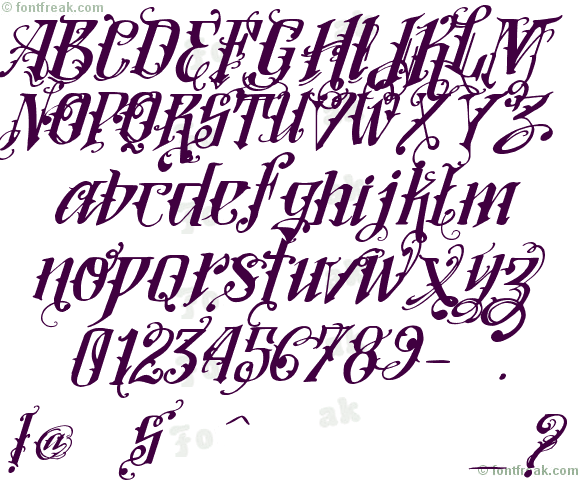
Vtks Lovers Italic
About Vtks Lovers Italic
Vtks Lovers Italic, crafted by Douglas Vitkauskas, is a stunning display font that falls within the decorative category. This typeface exudes an artistic flair, characterized by its elegant, flowing strokes and intricate detailing. The font features a medium stroke weight with soft contrast, allowing it to maintain readability while still showcasing its ornate design. The decorative elements, including whimsical swirls and flourishes, give it a romantic and sophisticated appearance, making it a perfect choice for various creative projects.
This unique font is particularly suited for wedding invitations, where its graceful style can enhance the overall aesthetic of the event. It also works wonderfully for movie posters, adding a touch of drama and flair that captures attention. Restaurant menus can benefit from the charm of Vtks Lovers Italic, creating an inviting and upscale feel that entices diners. Additionally, it can be effectively used for branding materials, especially for businesses in the arts or fashion industries, as it embodies a creative spirit that resonates with artistic audiences.
What sets Vtks Lovers Italic apart is its ability to convey emotion and style simultaneously. The combination of its artistic elements and practical usability makes it a standout choice for anyone seeking a unique typeface that leaves a lasting impression. Embrace the elegance of Vtks Lovers Italic and let your designs shine with its captivating charm.